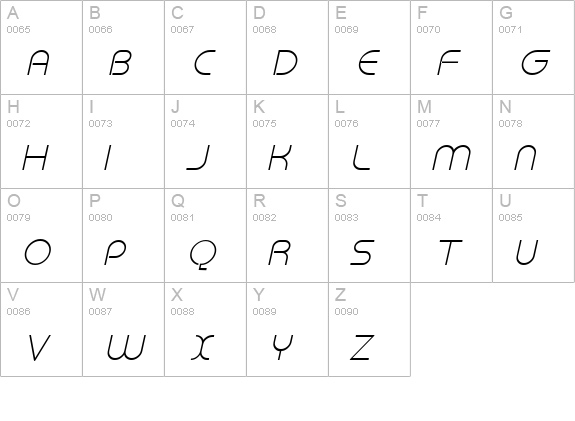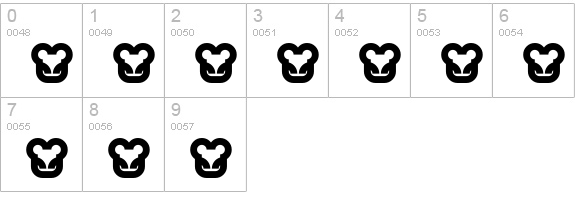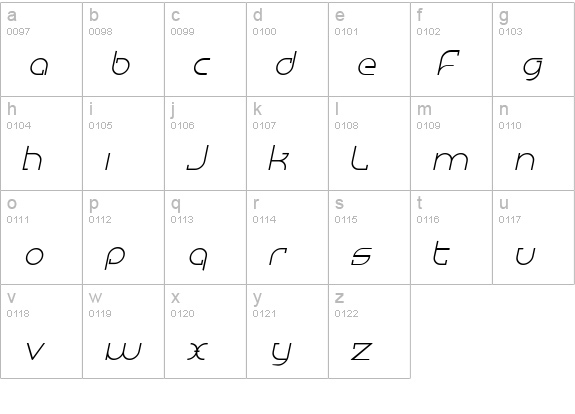
Megalomania Italic is a distinctive, italic variant in the Megalomania typeface family \xE2\x80\x94 well suited to design and typography projects.
Megalomania Italic font exudes a sense of grandeur and sophistication with its sleek and elegant design. The italicized style adds a touch of flair and drama to any project, making it perfect for luxury branding, editorial design, and more. The exquisite curves and sharp angles of this font command attention and convey a sense of power and authority. What's even better is that Megalomania Italic font is completely free to download at FontsMarket.com. This means you can elevate your designs with this stunning font without any cost. Don't miss out on the opportunity to add a touch of opulence to your projects with Megalomania Italic font - download it now and make a bold statement!